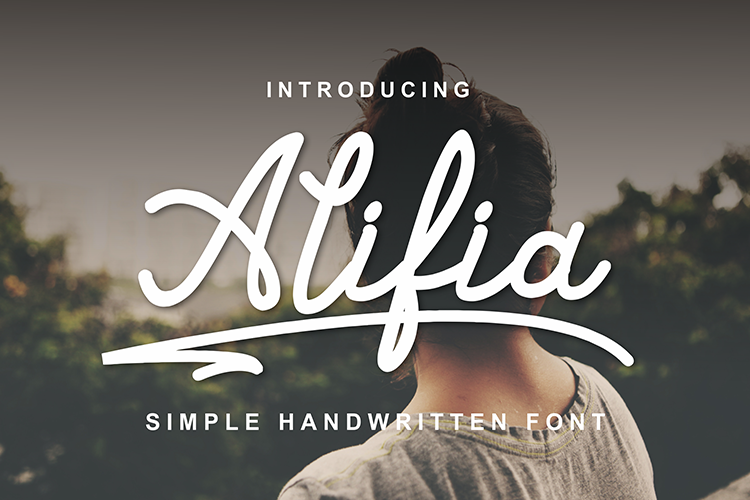
Alifia
We introduce our new product called Alifia.
Alifia is a simple handwritten font that can use to make a design for logo branding, poster headline, magazines, book titles, business cards, beautiful fashion designs, advertisements, product designs, wedding invitation, signature or handwritten quote.
Alifia Features :
- Upper and Lowercase Standard Characters, Punctuation, Numerals.
- Ligatures.